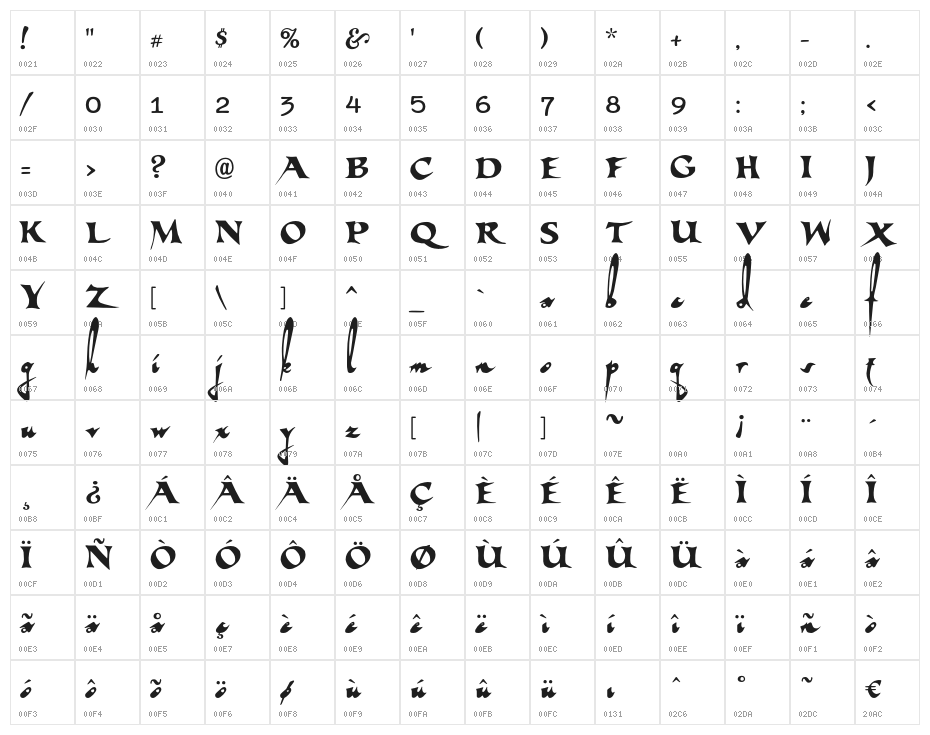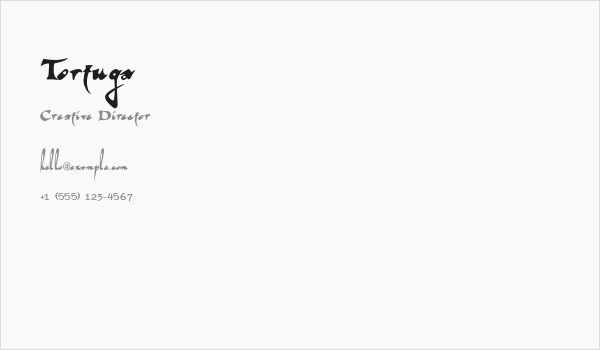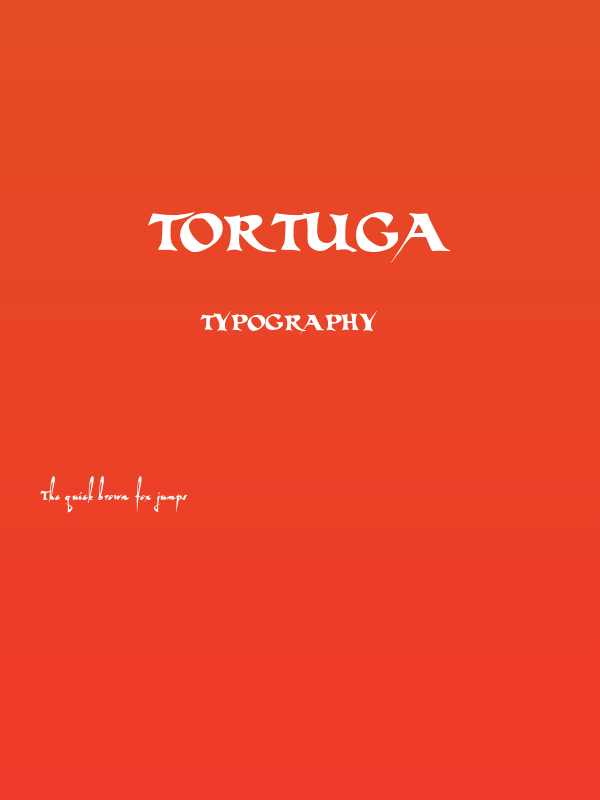
Tortuga Font
| 全体的なスタイル | Medieval, Fantasy, Decorative |
| おすすめプロジェクト | Ideal for fantasy book covers, historical event posters, themed restaurant menus, and video game graphics. |